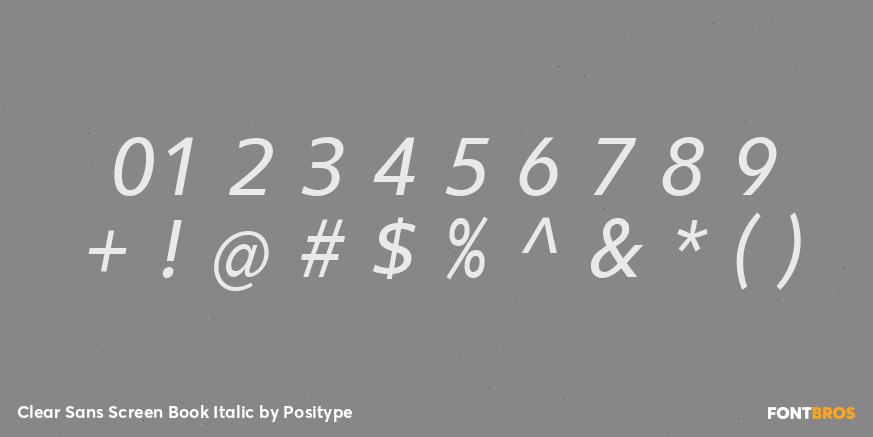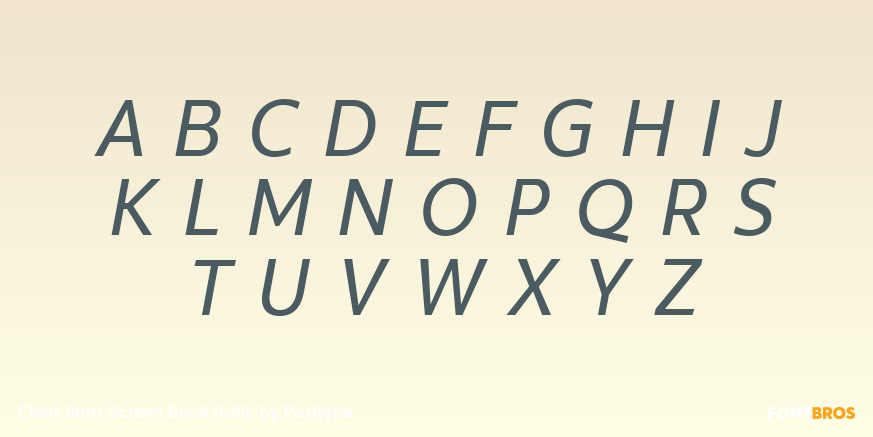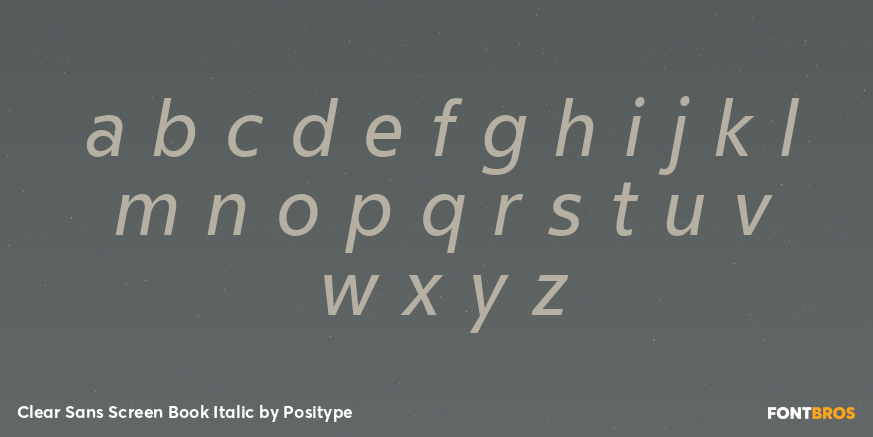
Clear Sans Screen Book Italic Font by Positype
Clear Sans is a… wait for it… rational geometric sans serif. It is intended to fill a niche… to provide an alternative to the somewhat based-on-vernacular signage, somewhat geometric sans. I hear the word vernacular thrown around too much and too loosely. If a typeface is based in the vernacular, based on hand-painted or hand-crafted signage, then it should be based on the movements of the hand, retain that warmth and not on a pretty geometric model. For me, clean, geometric and precise doesn't have to be cold and expressionless.
The original skeleton was hand-painted in 2008 to help determine and inform my decisions going forward. The typeface was completed shortly afterwards at the behest of an old friend for their identity. As usual, I expanded it, but considered retiring it since there were so many things similar out there. Years later, I had a chance to rediscover it and came to the conclusion that it could be improved, expanded in a logical and useful way, and introduced.
I would be lying if I didn't admit that the rise of webfonts and embedded type in applications influenced many of the decisions I made about reworking Clear Sans. Completely new Text and Screen fonts were developed that utitlize larger x-heights, space-saving widths, logical (and simplified) weight offerings… to name a few alterations. Even the pricing of each variant was considered to produce a more reasonable and simple solution for the developer, designer, professional and novice.
Clear Sans is a departure from my previous sans serifs, but the influences of Aaux Next, Akagi Pro and Halogen are evident.